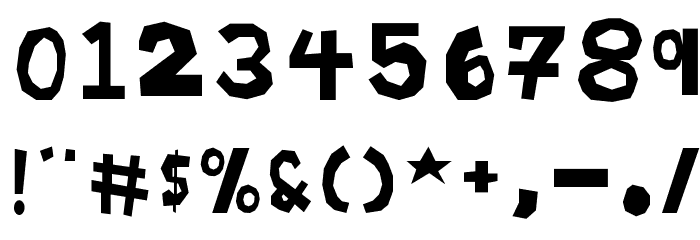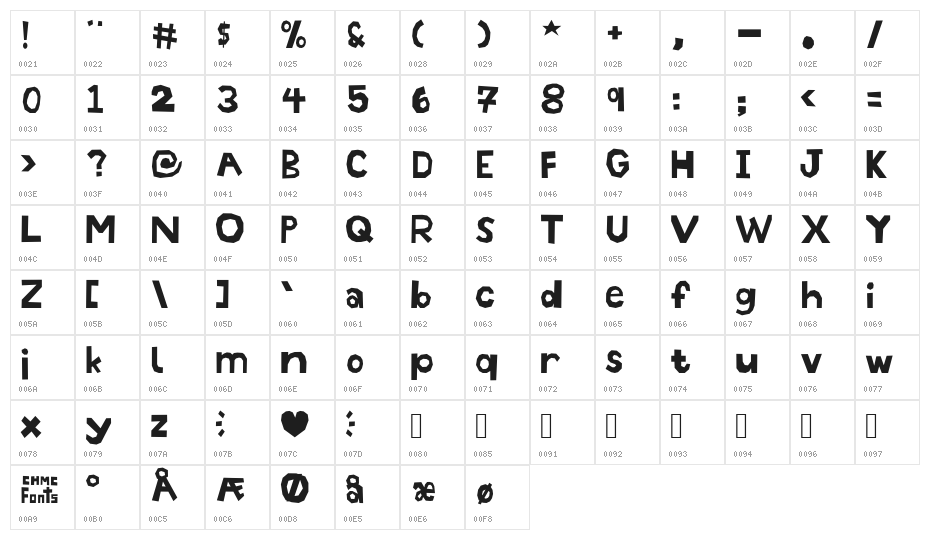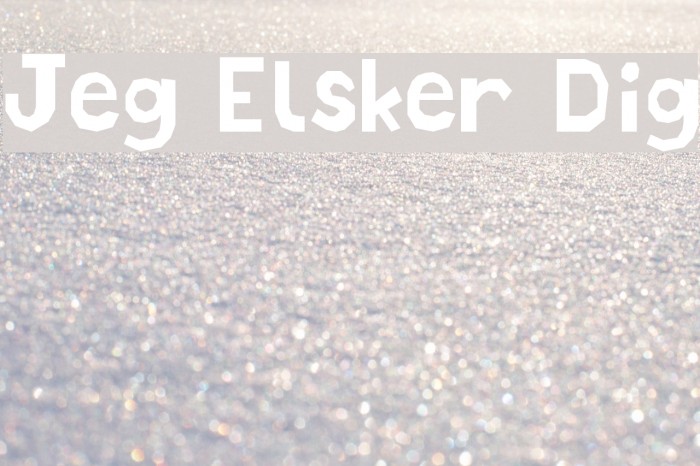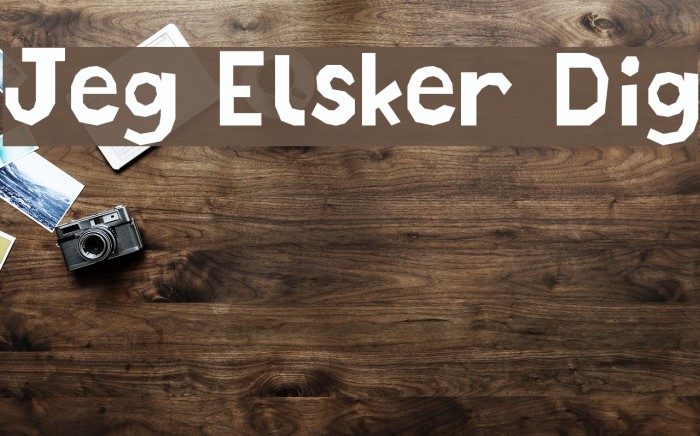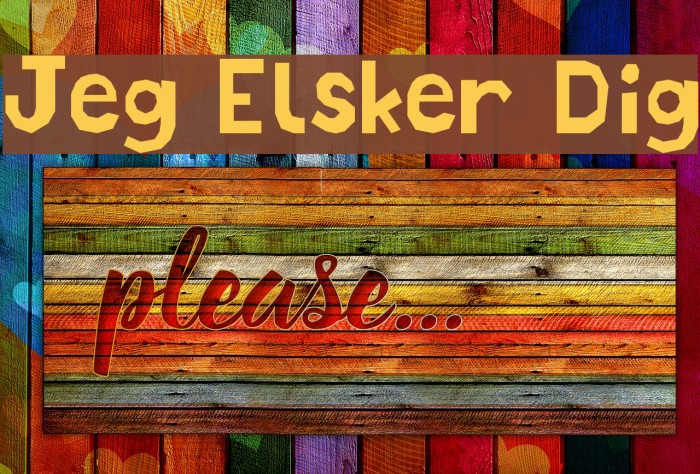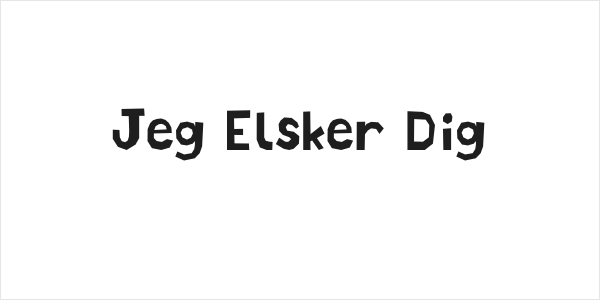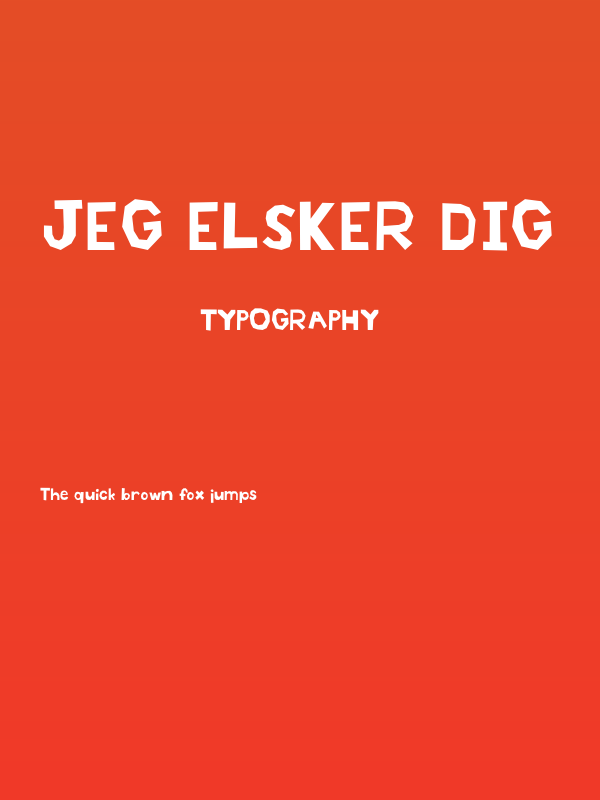
Jeg Elsker Dig Font
Jeg Elsker Dig Description
This font features a bold and geometric style with a playful and slightly irregular appearance. The characters are constructed with sharp angles and varying line thickness, giving it a dynamic and energetic feel. The uppercase letters are particularly striking, with a strong presence that commands attention. The lowercase letters maintain the same geometric style, ensuring consistency across the typeface. Numbers and special characters are also designed with the same bold and angular characteristics, making them stand out. This font is ideal for projects that require a modern and edgy look, such as posters, headlines, and branding materials.
| Proposed Projects | Ideal for posters, headlines, branding, and any project needing a modern, edgy aesthetic. |